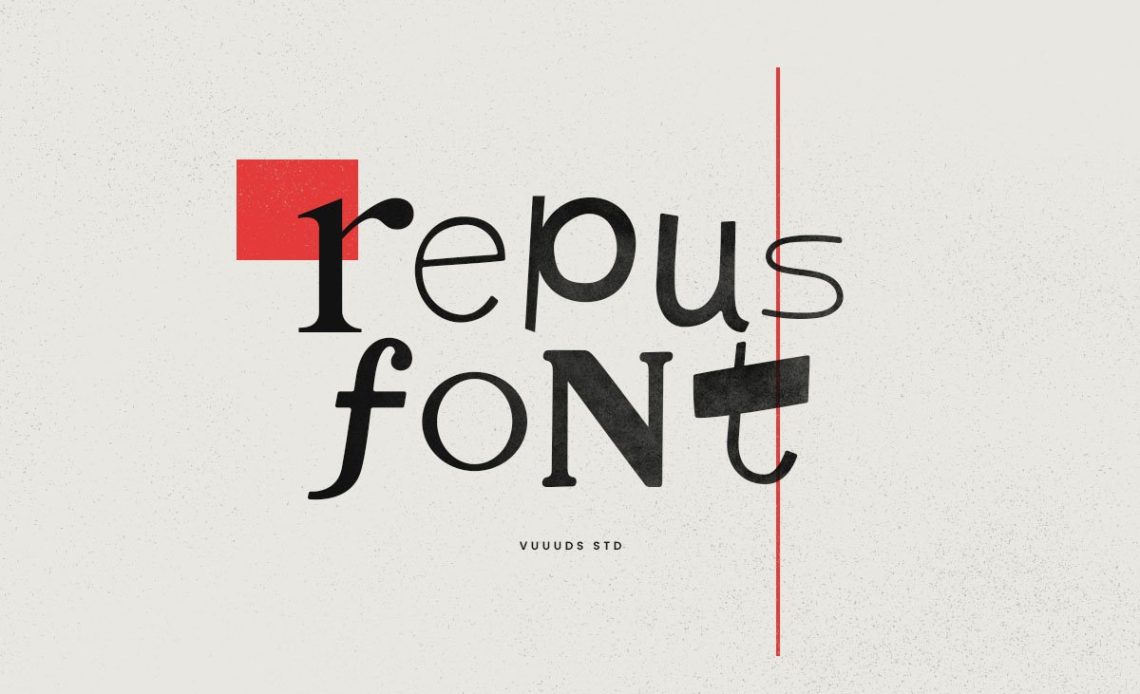
Introducing Repus Font, the perfect addition to any designer's toolkit. This experimental font, created by Agung Syaifudin, is the best choice for modern logos. With its unique and carefully crafted random font style, Repus Font will make your designs stand out from the crowd.
But that's not all. Repus Font also includes beautiful alternate glyphs, adding even more variety to your designs. And with support for foreign languages, you can use Repus Font to create designs for clients all around the world.